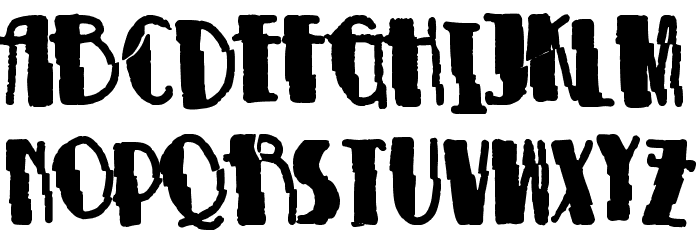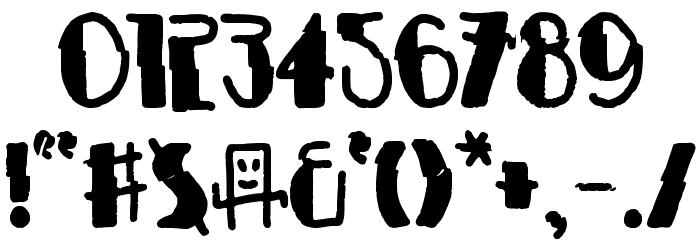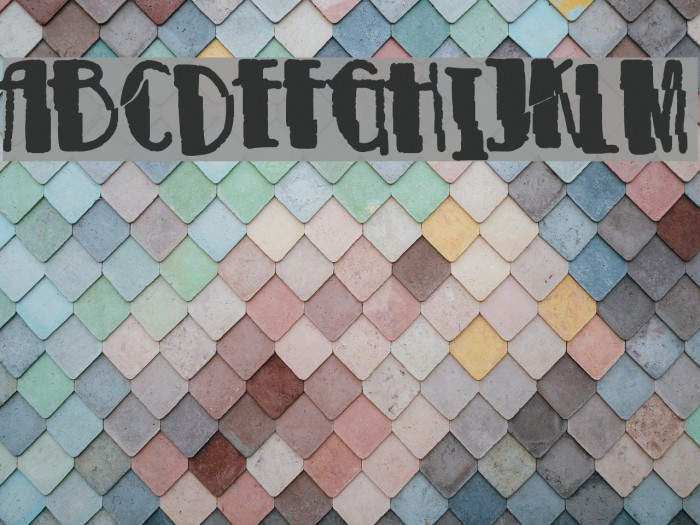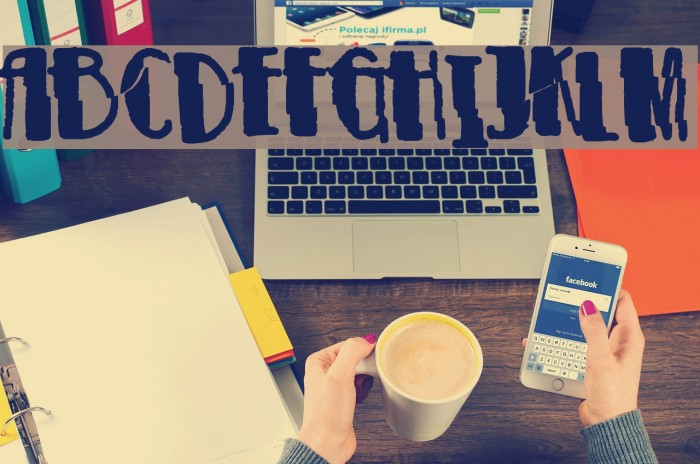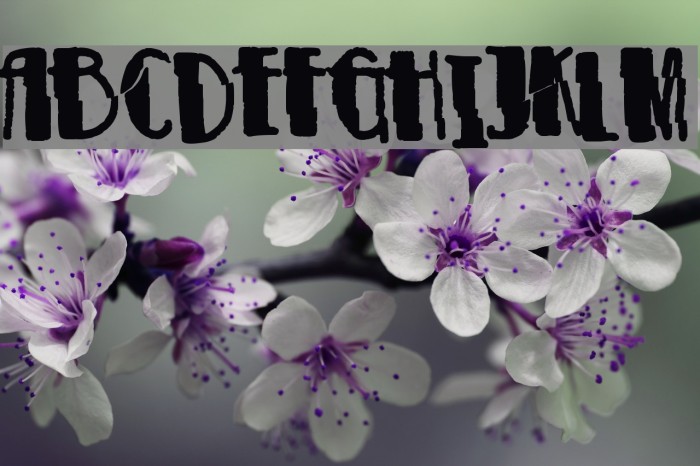
modernist chaos Font
This font exhibits a bold and chaotic style, with each character displaying a unique and irregular form. The letters are heavily stylized, featuring thick strokes and uneven edges that create a sense of movement and energy. The uppercase and lowercase letters maintain a consistent height, but their widths vary, adding to the dynamic appearance. The numbers and special characters follow the same design principles, contributing to the overall eclectic feel. This font is perfect for projects that require a bold statement and a touch of artistic flair.
A bold, chaotic font with irregular, dynamic characters.
- Proposed Projects: Ideal for album covers, posters, and creative branding that seeks to stand out.